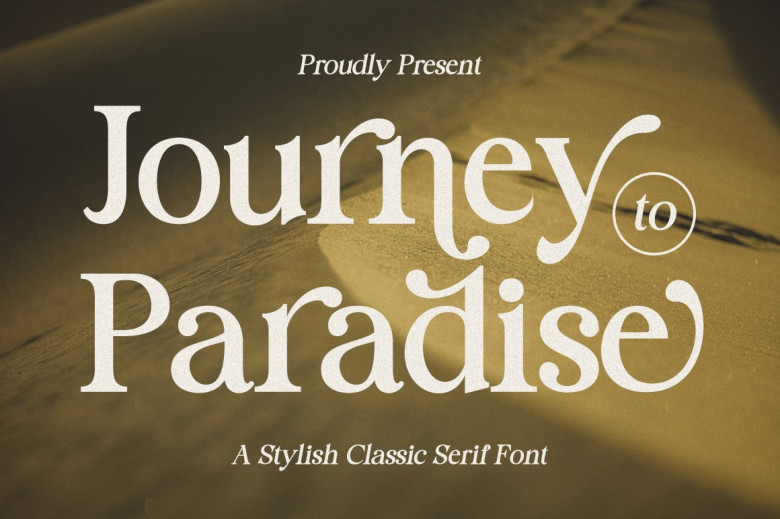
Journey To Paradise Font
Journey To Paradise is a chic and thin-lettered serif font. It maintains its classy calligraphic affiliations while feeling new and current. Become inspired by it and bring any projects to a whole new level!
Journey To Paradise Serif Font